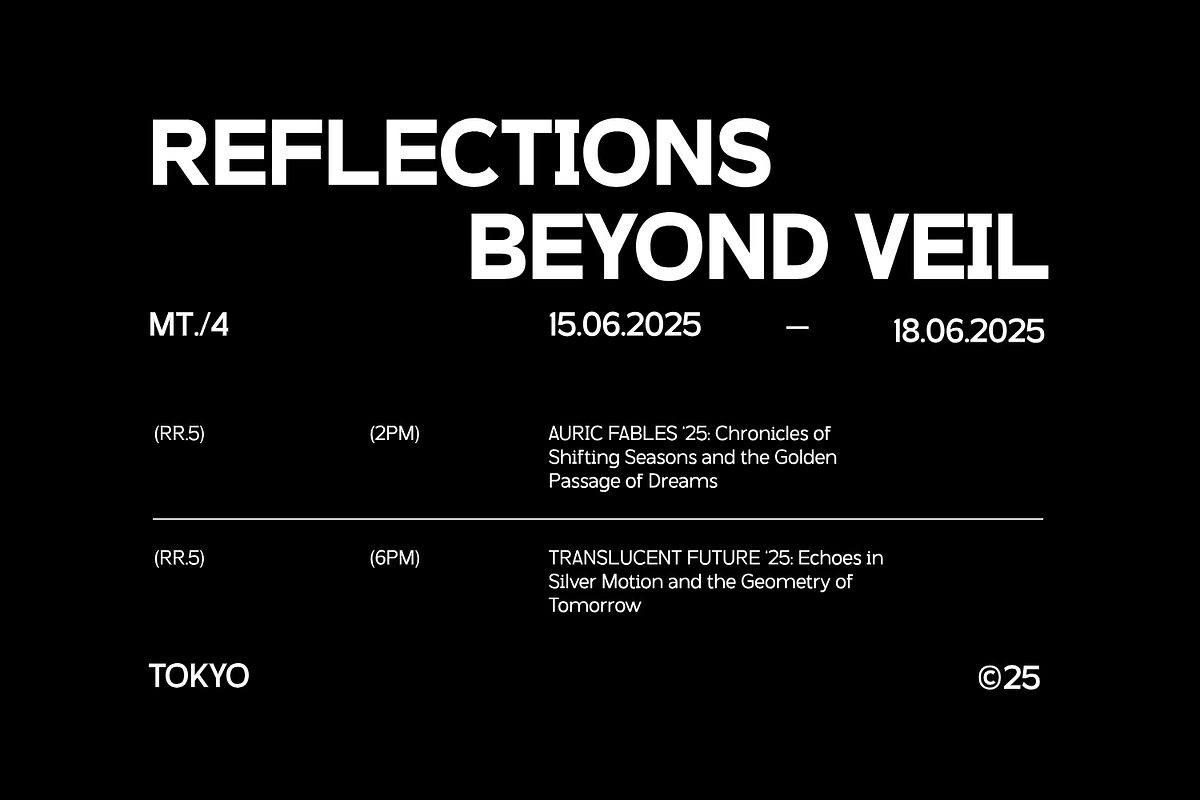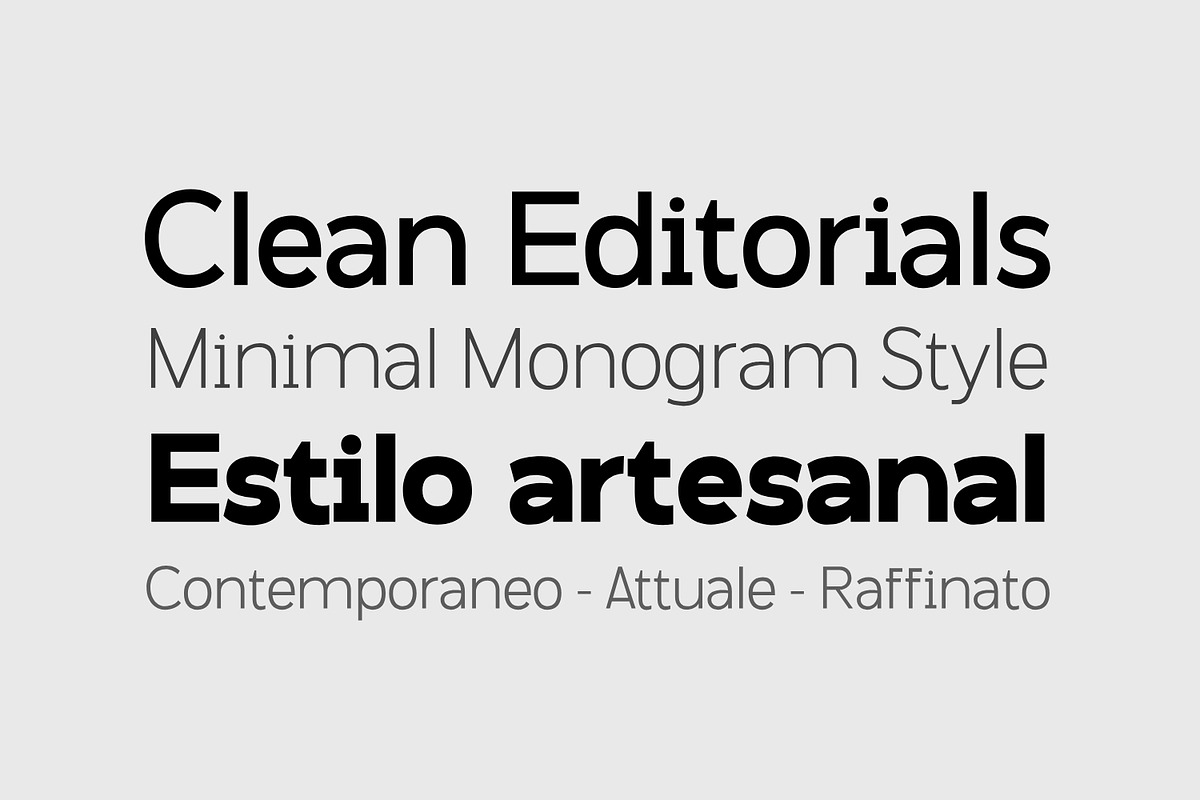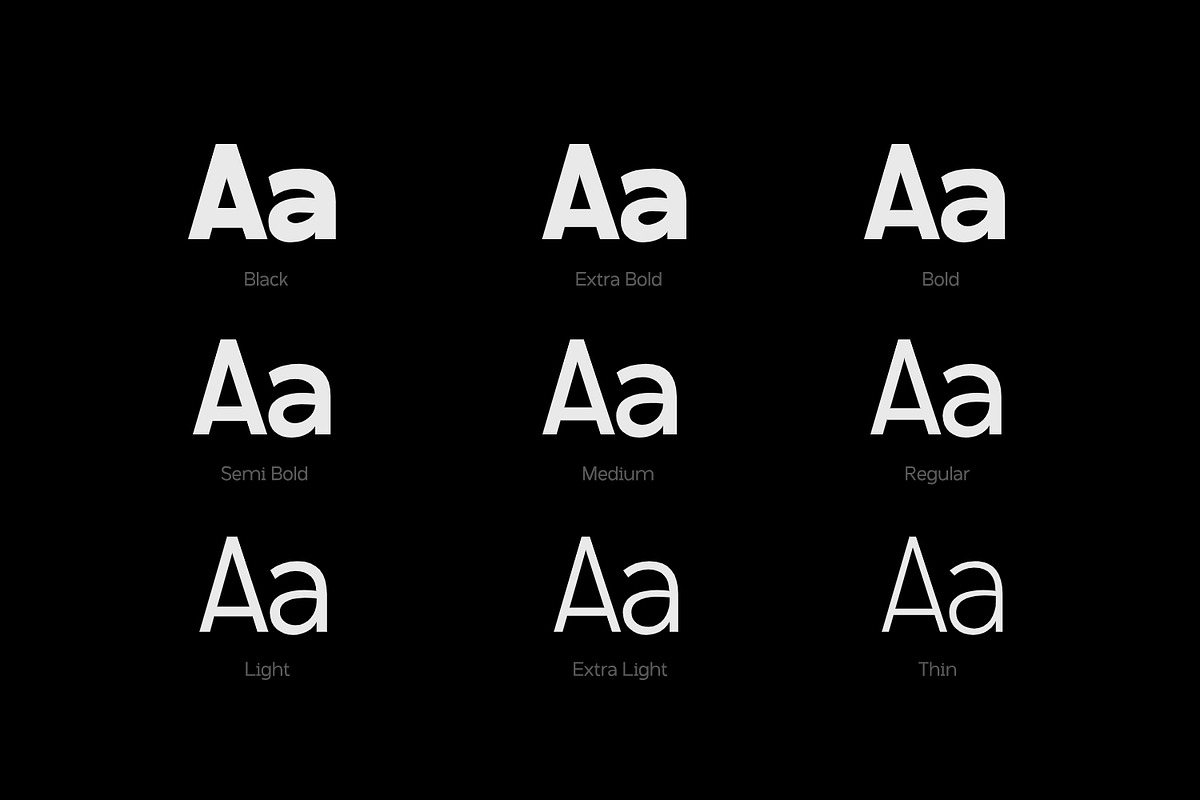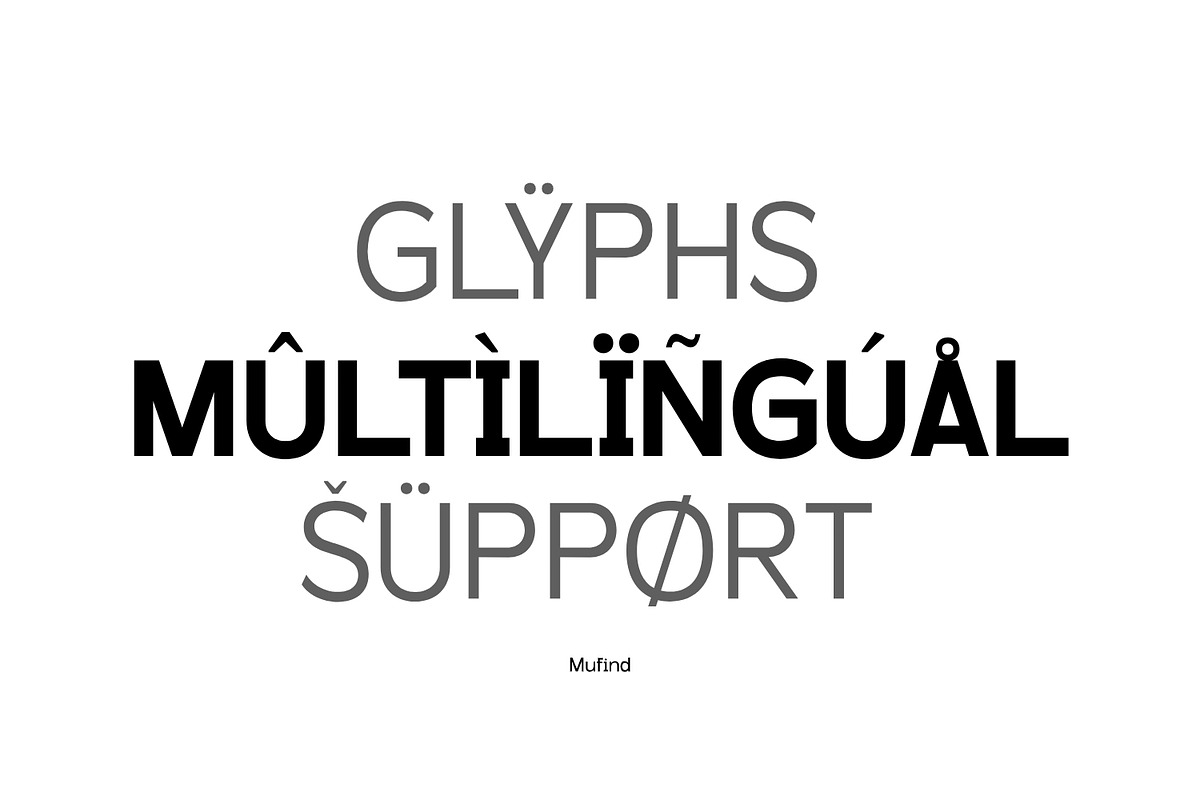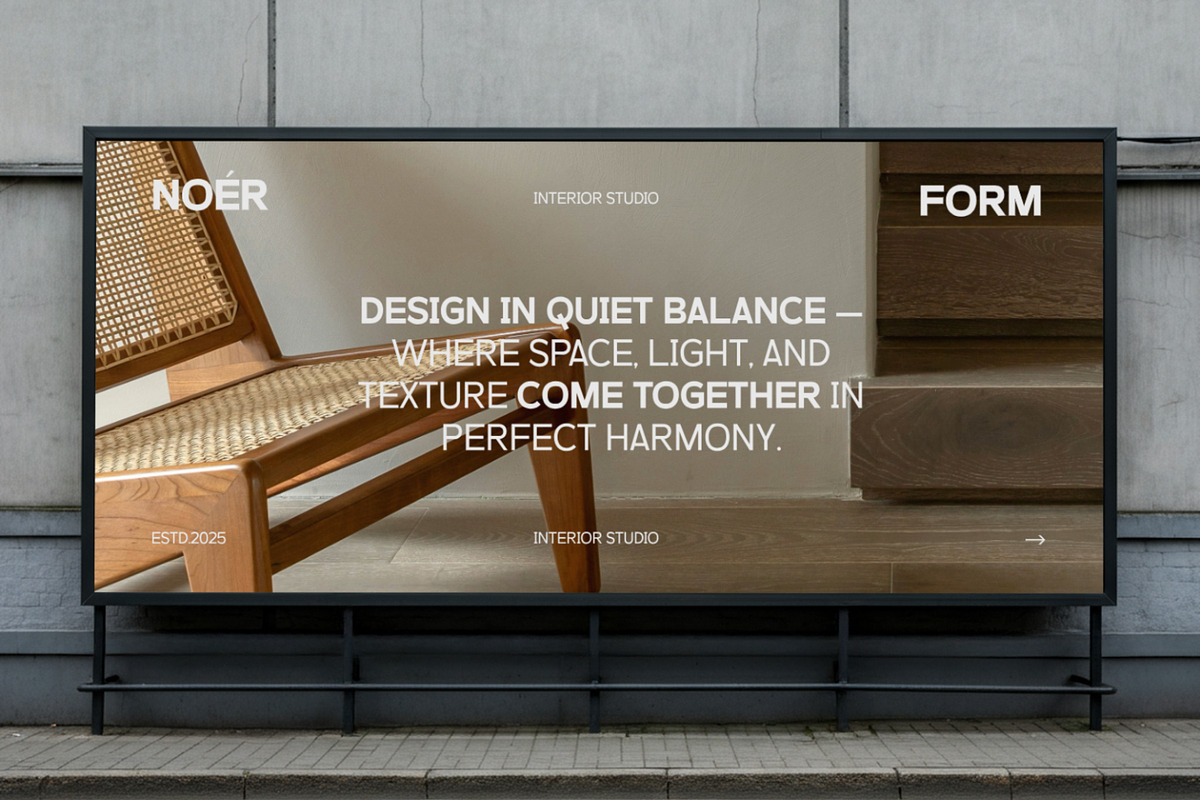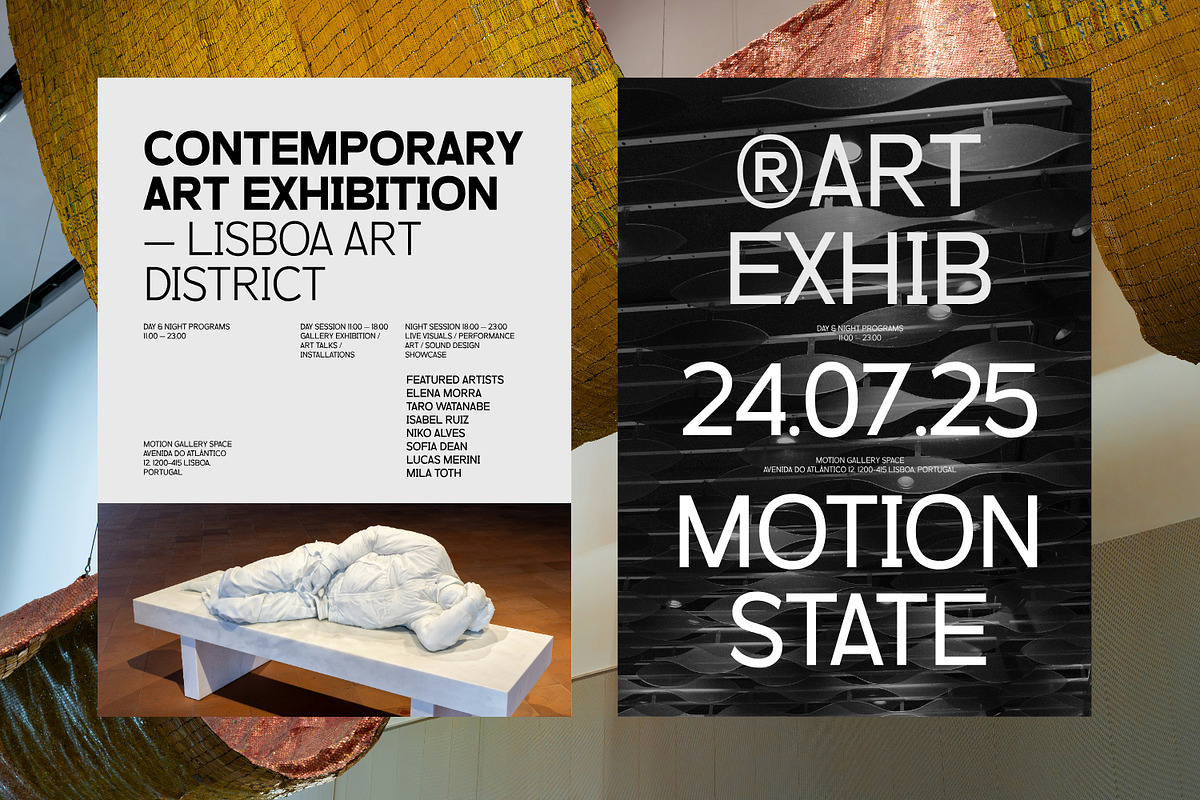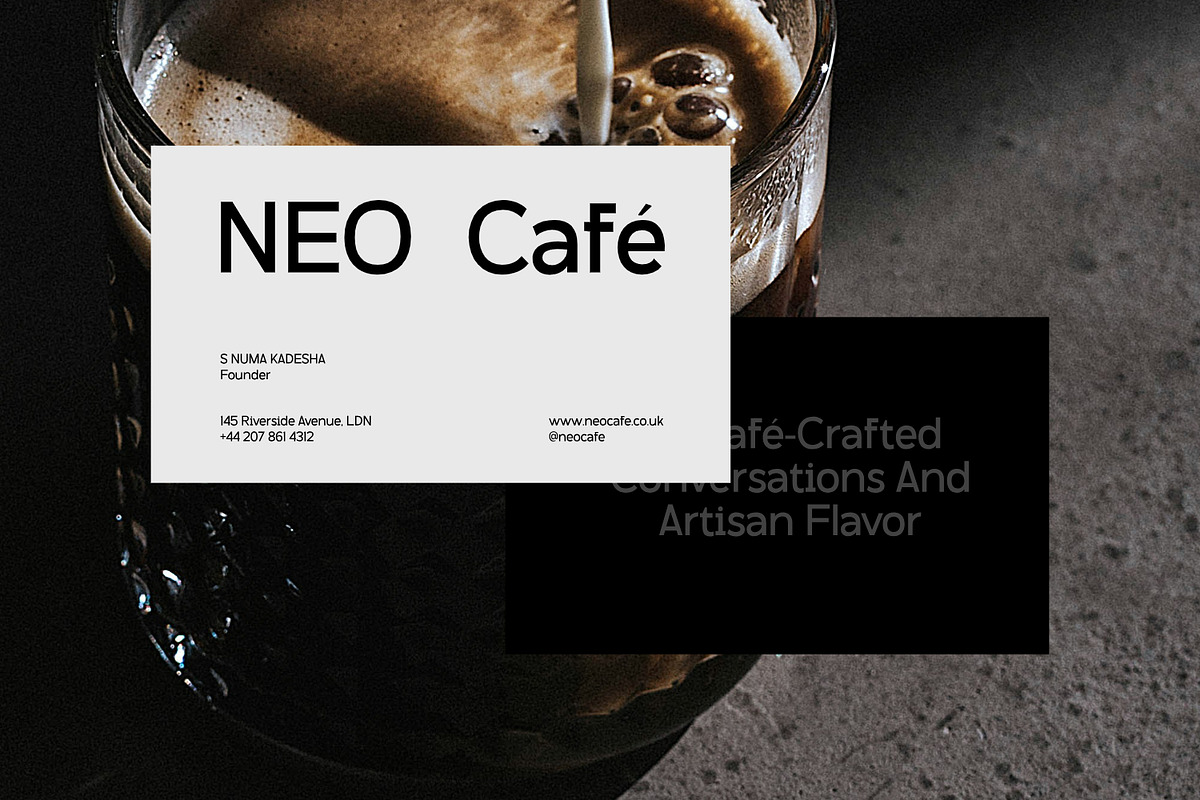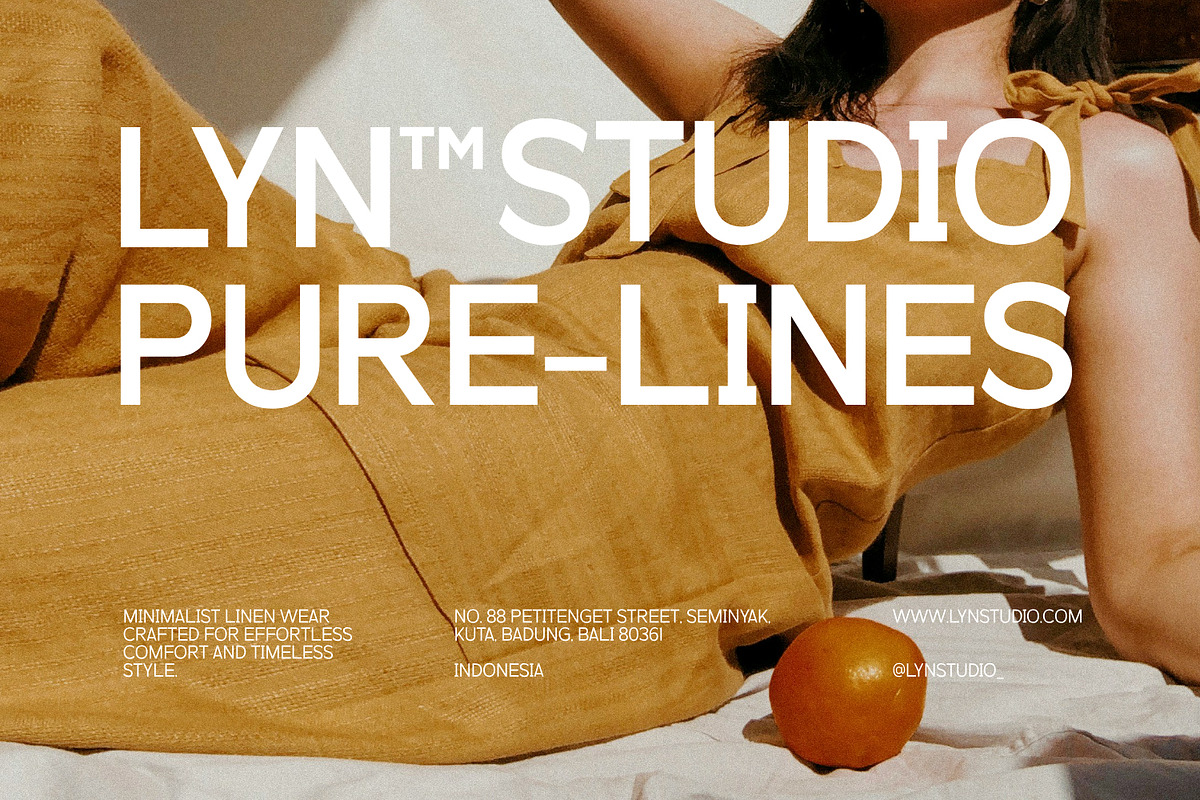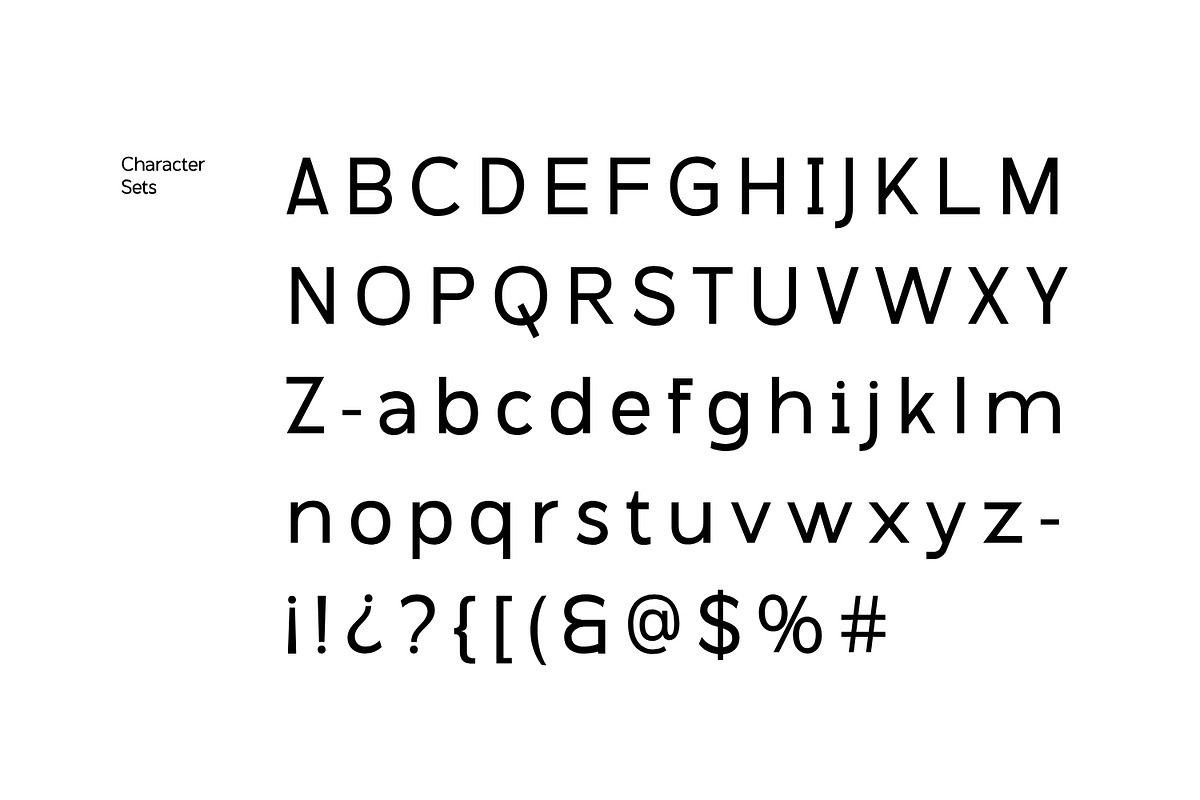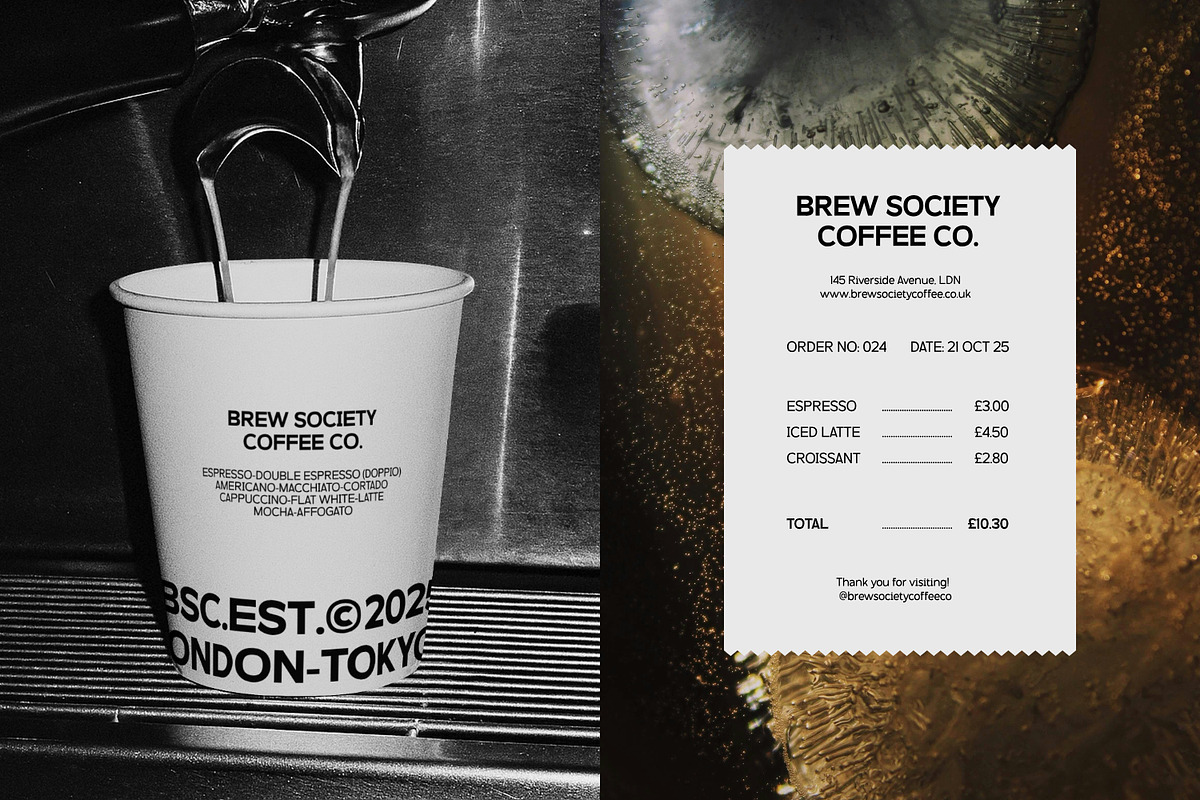
Mofiné - Modern Contemporary Family
Mofiné blends clean geometry with soft, human touches for a look that’s both sharp and welcoming. From bold headlines to crisp UI and readable decks, its 9 weights deliver effortless harmony across brand, web, and print. OTF/TTF included—ready for your next launch.
- 09 Dynamics weights